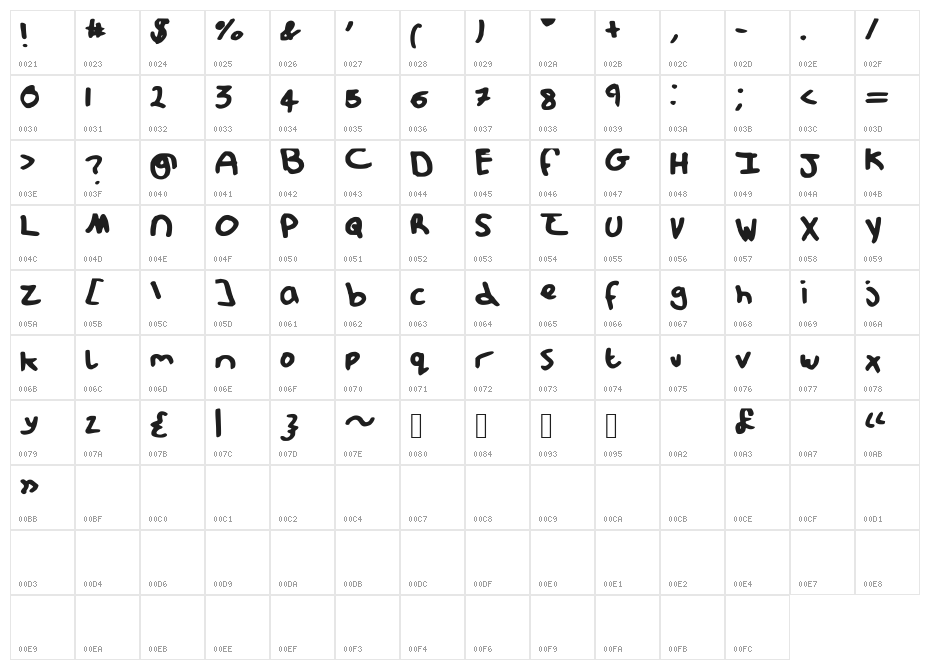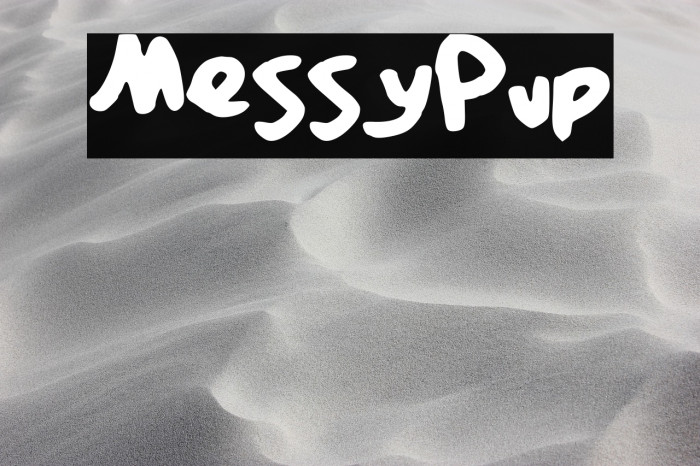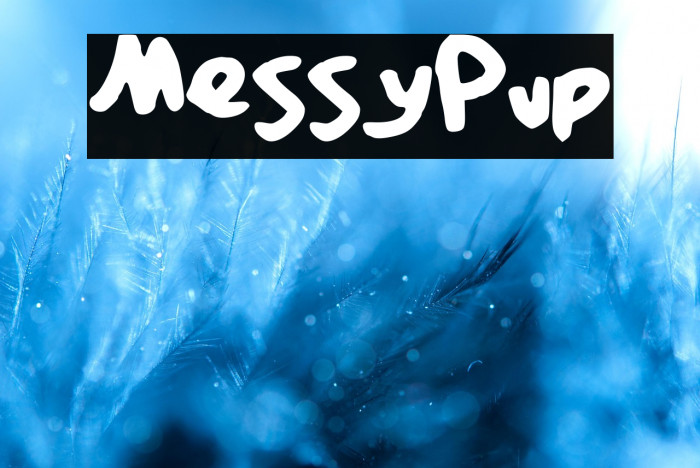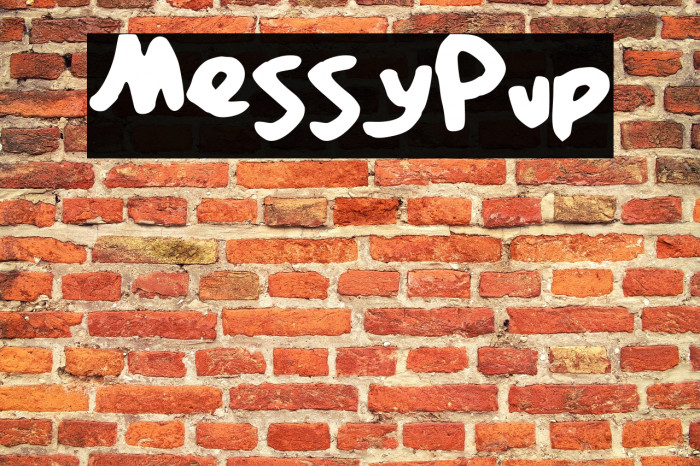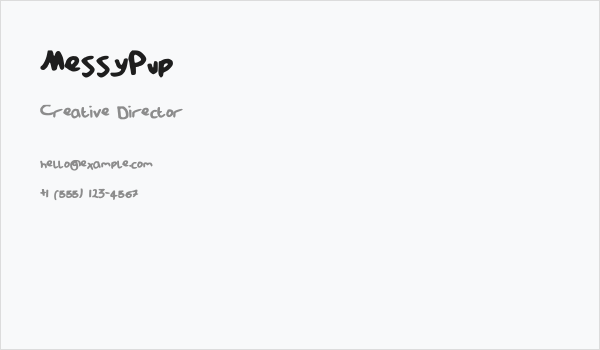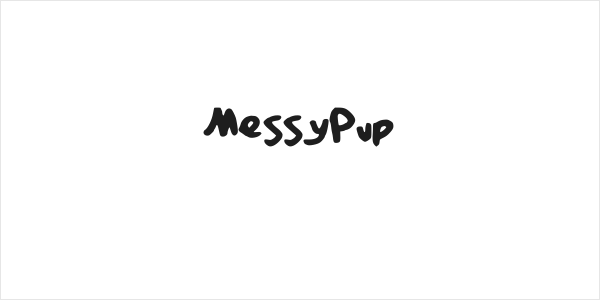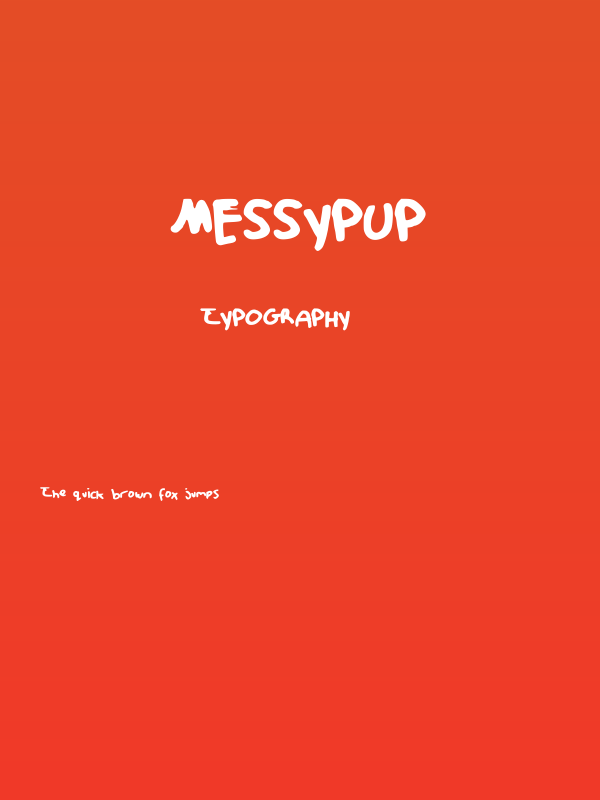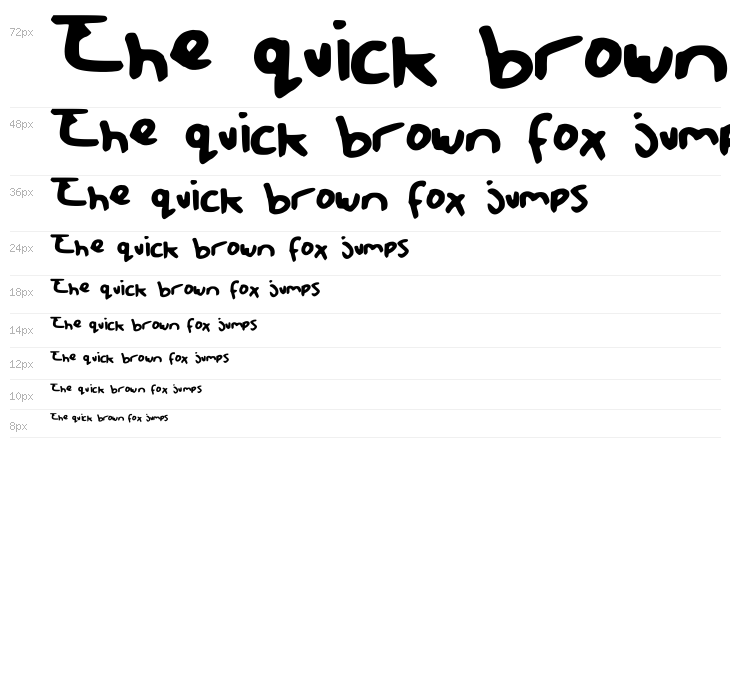
MessyPup Font
MessyPup Description
A playful, handwritten font with irregular strokes and a casual appearance.
| Use Case | Informal text, Creative projects |
| Proposed Projects | Children's books, informal invitations, playful branding. |